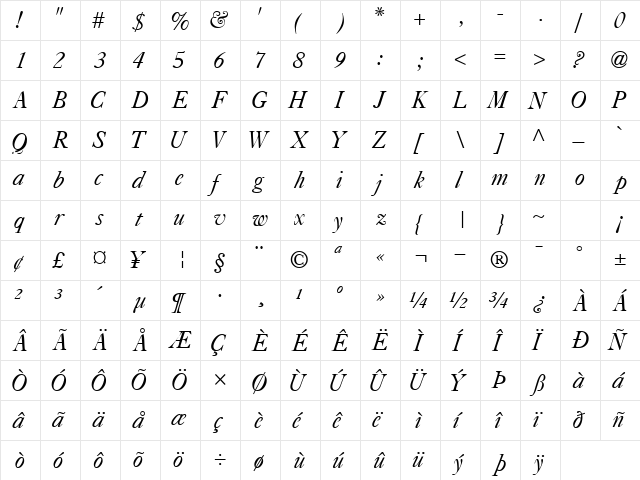
CaslonFiveSSK Italic Font Preview
CaslonFiveSSK Italic
CaslonFiveSSK Italic Font Details
Design Context for CaslonFiveSSK Typeface
CaslonFiveSSK takes a measured approach to typography — its balanced proportions and neutral character make it a reliable workhorse for both digital and print work. Its italic angle brings a sense of urgency and motion to the letterforms.
Pro Tip: Use CaslonFiveSSK for emphasis, pull quotes, and subheadings where its slanted energy can add rhythm to the layout.